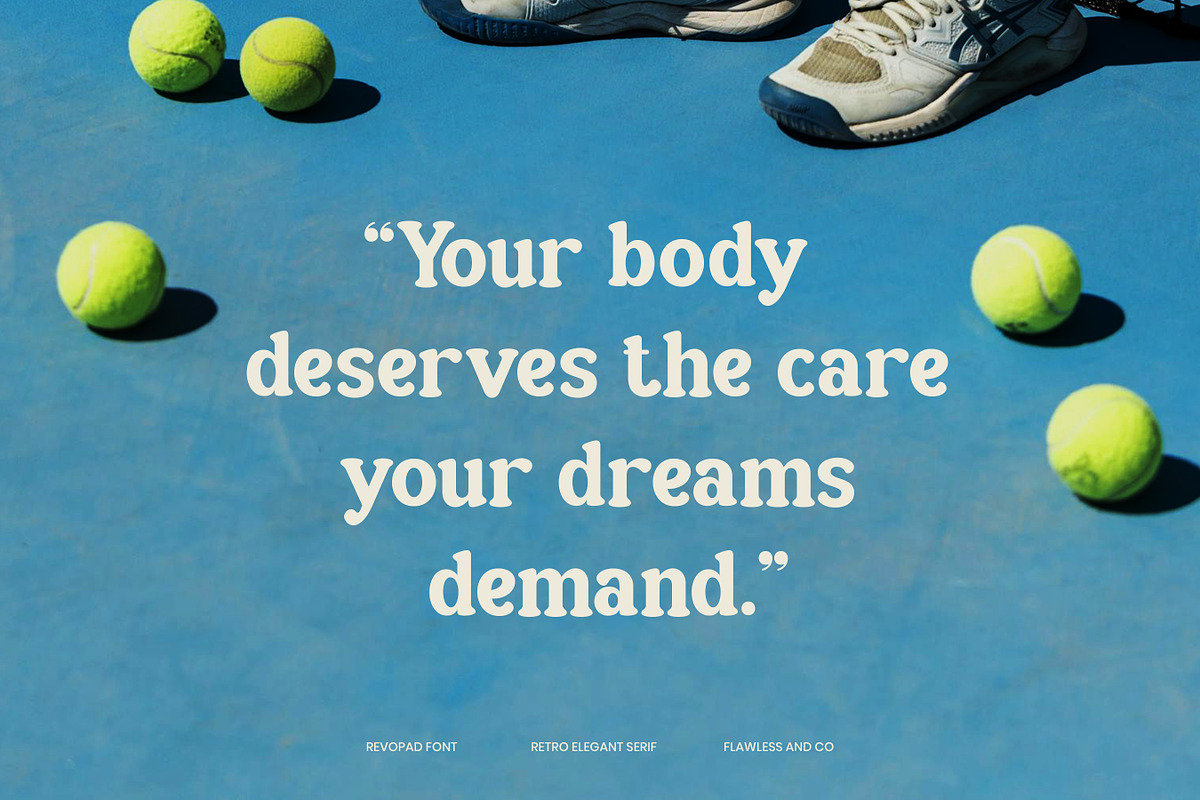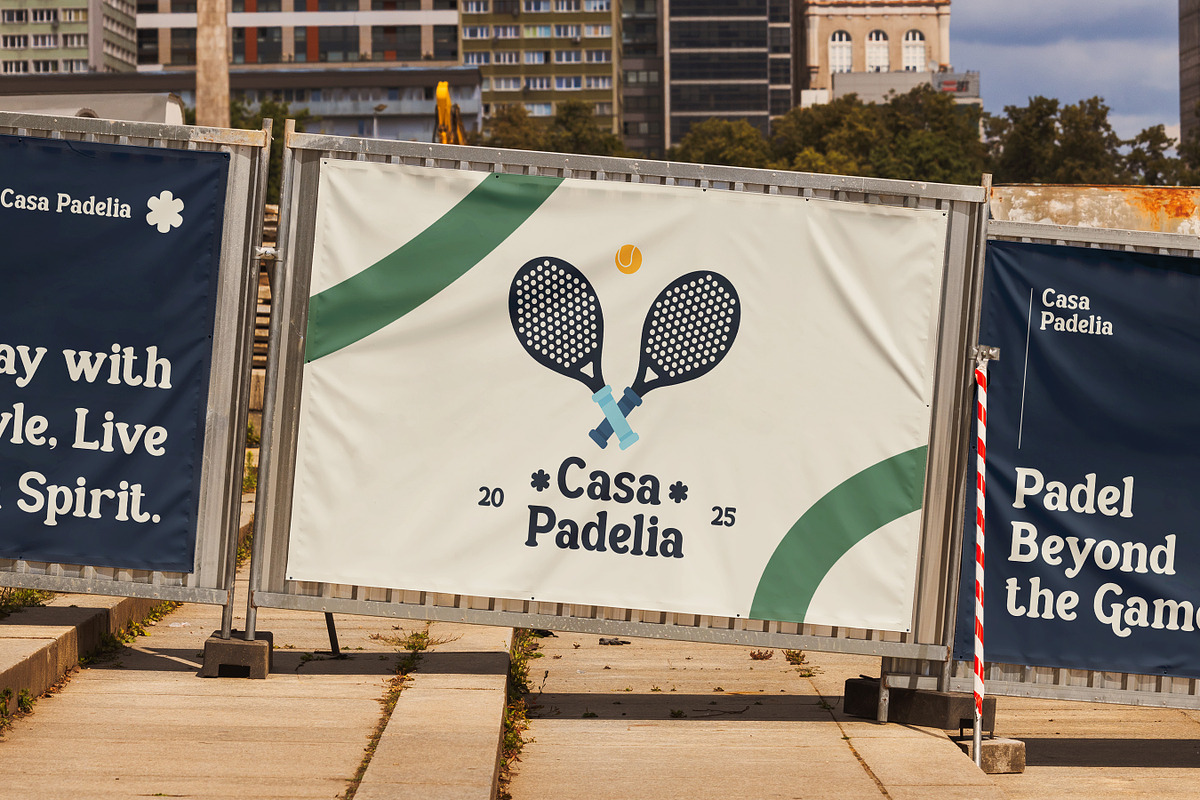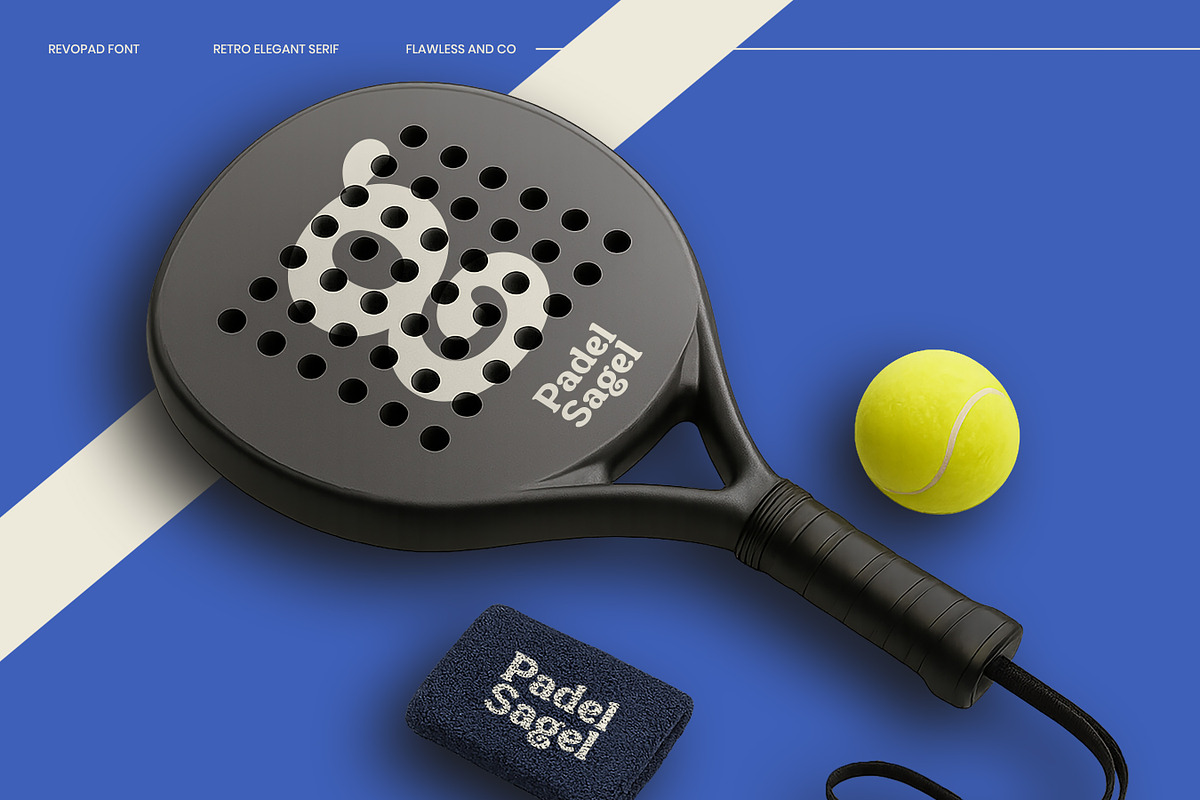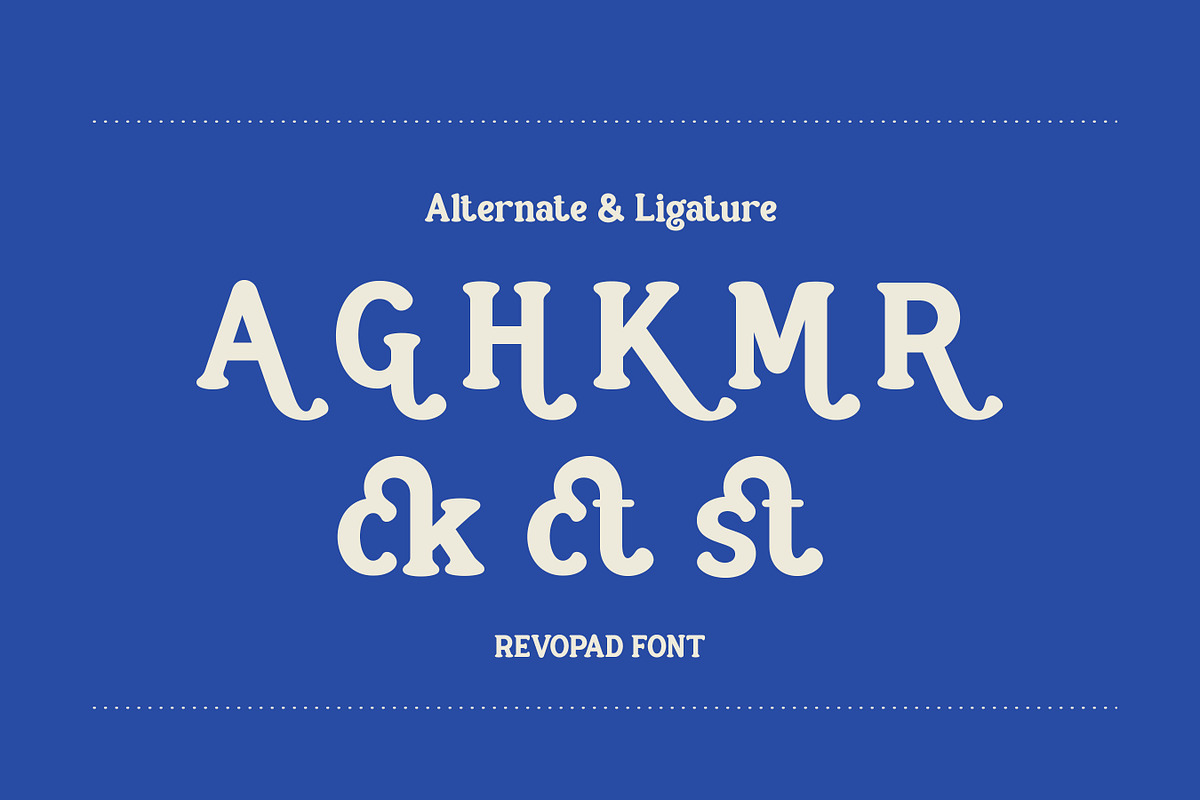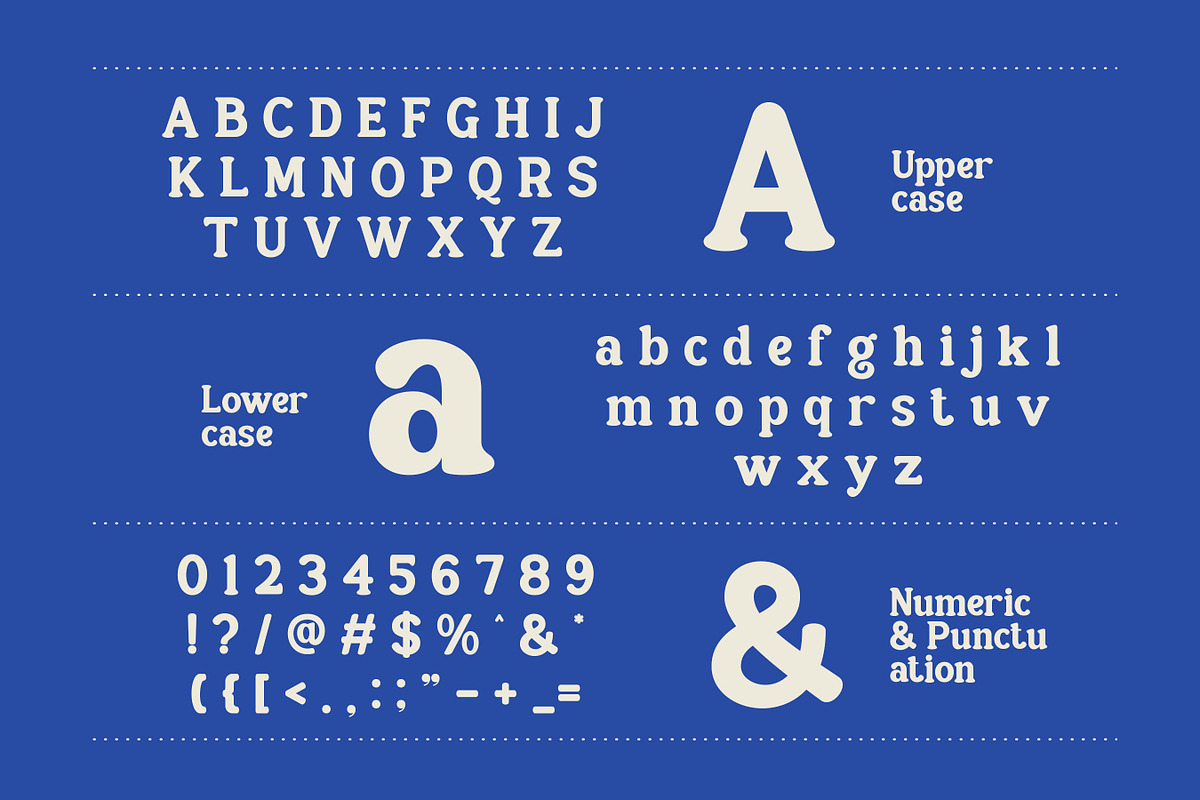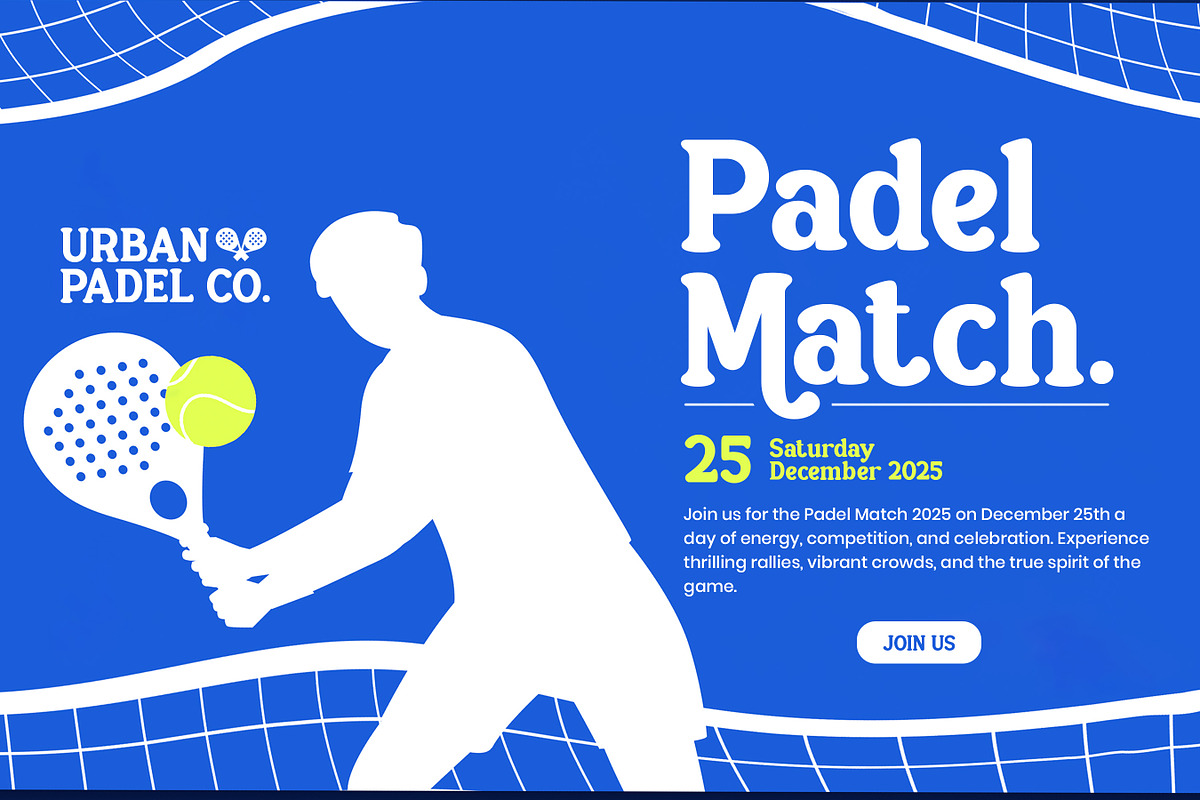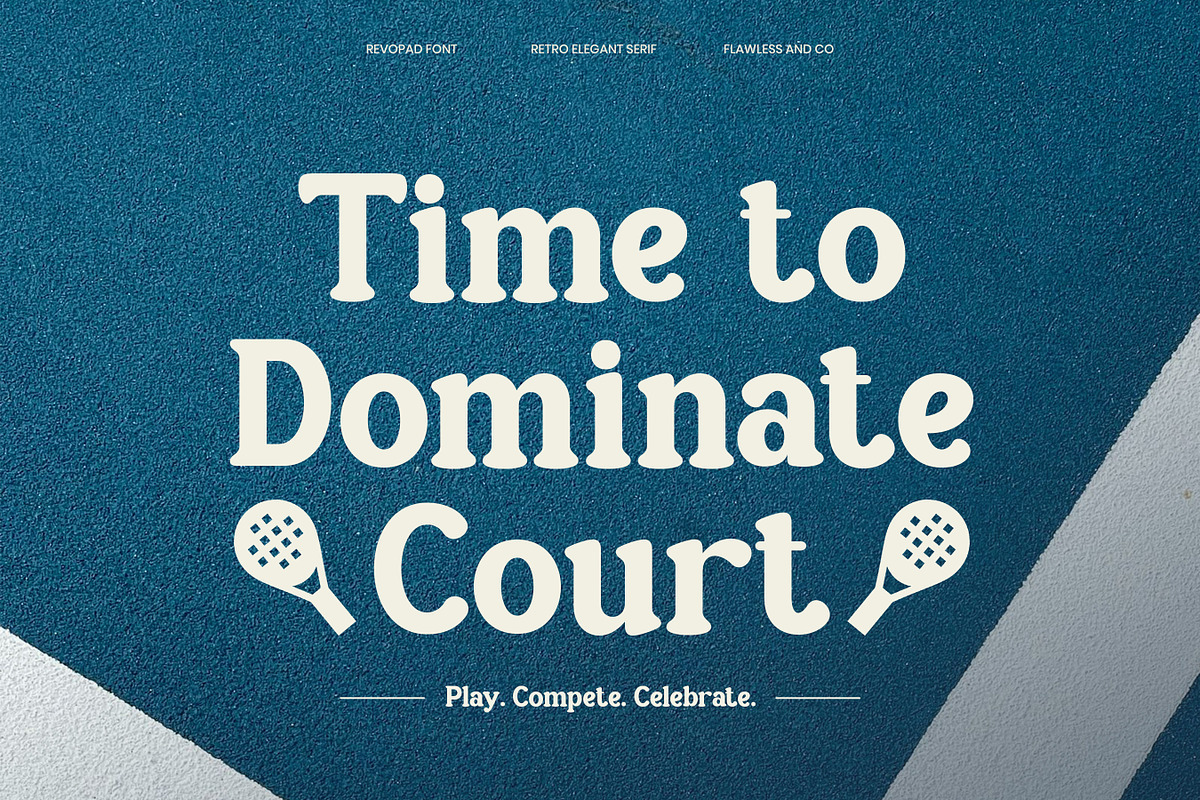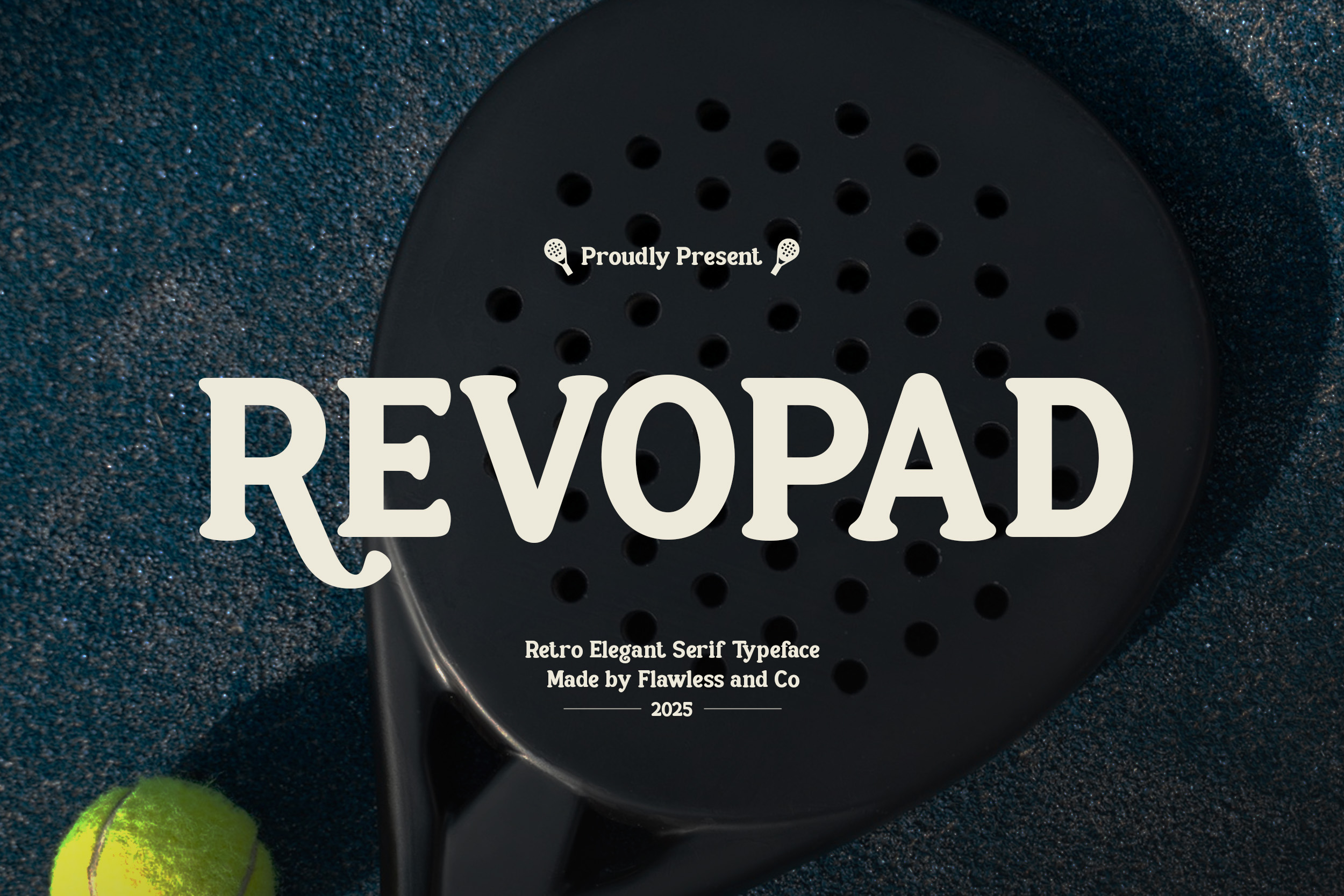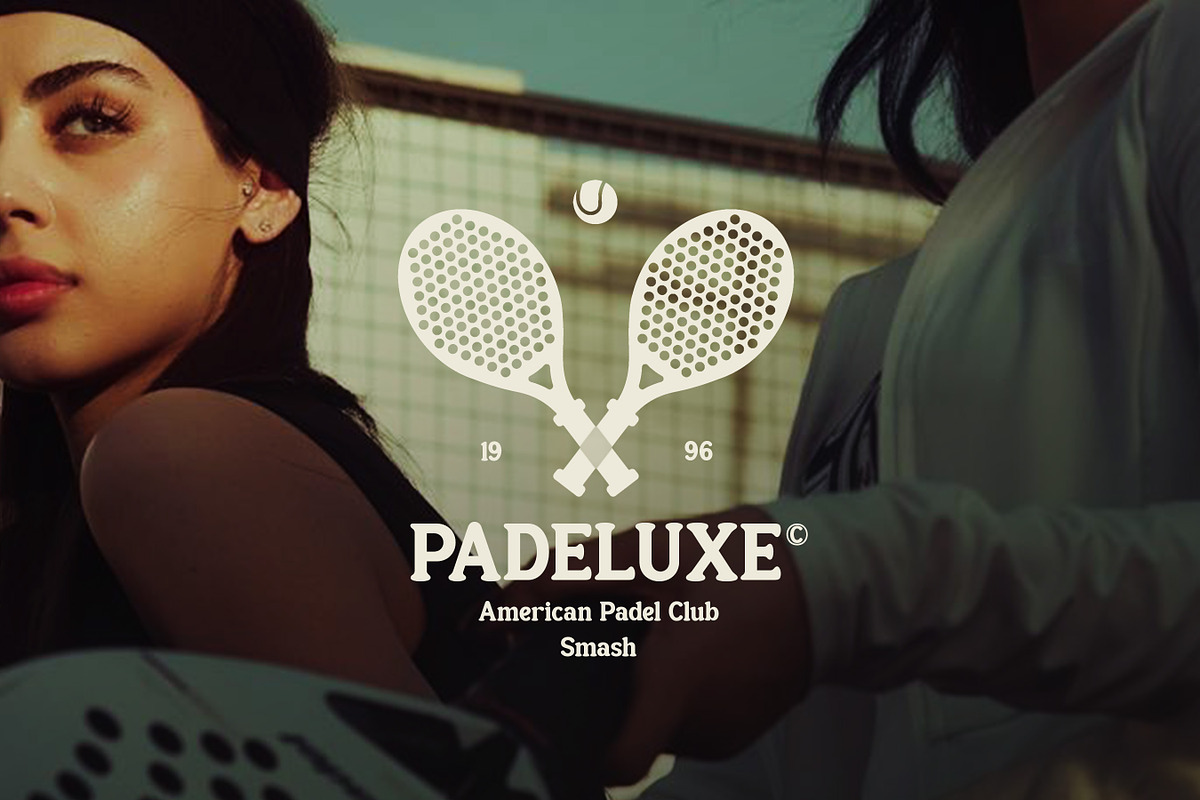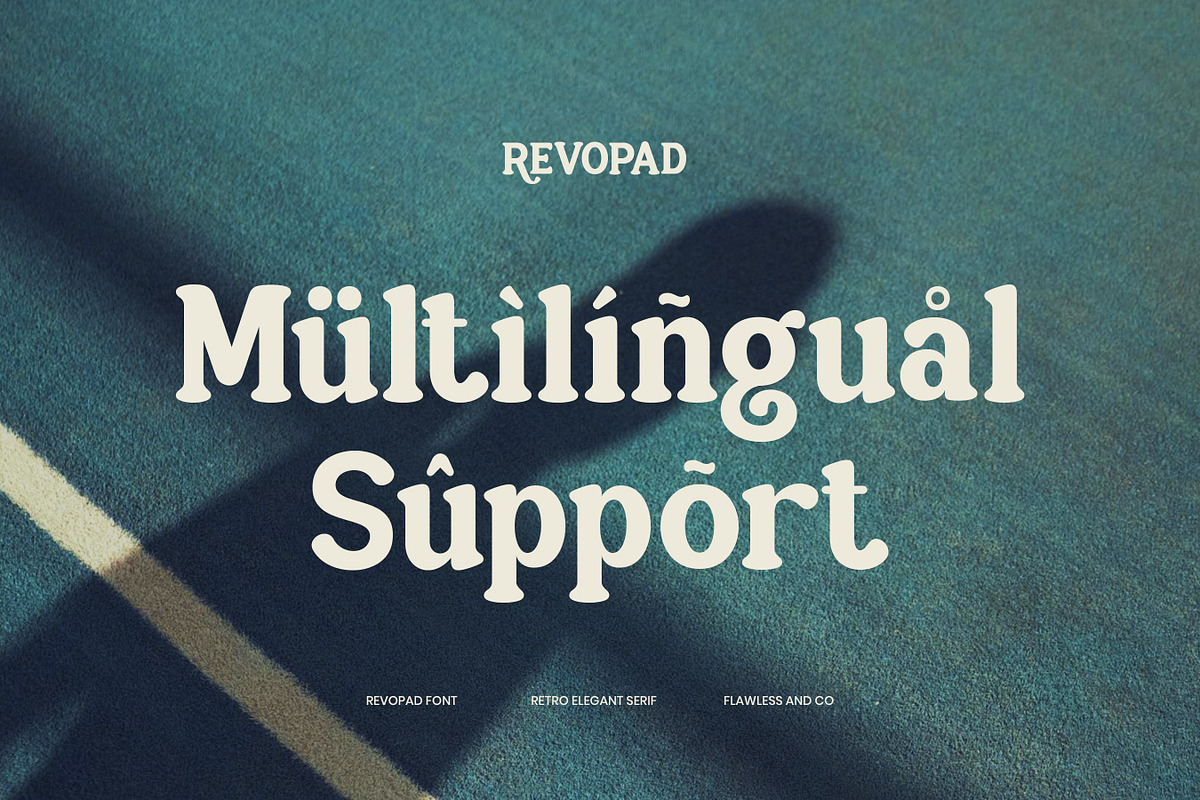
Revopad - Retro Elegant Serif Font
Revopad – Retro Elegant Serif Typeface
Revopad is a retro elegant serif font that blends classic charm with modern refinement. Each letter is crafted with subtle curves and distinctive serifs, creating a timeless aesthetic that feels both nostalgic and sophisticated. Its balanced proportions and graceful details make Revopad perfect for projects that demand style, confidence, and personality.
Who Should Use Revopad?
Revopad is made for designers, brands, and creatives who appreciate the beauty of timeless typography with a modern twist. It’s perfect for those who want to infuse their work with an elegant retro feel—balancing sophistication and boldness in one unique style. Whether you’re crafting visual identities, editorial layouts, or stylish product designs, Revopad is the go-to choice for creators who aim to leave a lasting impression through refined and expressive typography.
A Must-Have Font for "Brand and Logo" Creators and Designers
Revopad is an essential font for designers and brand creators who seek a retro yet elegant serif aesthetic. With its charming curves and refined letterforms, this typeface captures the perfect blend of vintage sophistication and modern appeal—making it ideal for crafting distinctive brand identities, luxury logos, and timeless visuals.
Why Choose Revopad for "Brand and Logo" Projects?
Revopad brings a unique blend of retro elegance and modern sophistication, making it an exceptional choice for brand and logo design. Its stylish serif details and smooth curves give every word a sense of refinement and timeless beauty, helping your brand stand out with memorable personality. Whether you’re designing for fashion, lifestyle, or editorial brands, Revopad delivers the perfect harmony between classic charm and professional appeal—ensuring your logo communicates both style and credibility at first glance.
Suitable For:
- Brand identities and logo design,
- Editorial layouts and magazine headlines,
- Fashion and lifestyle branding,
- Product packaging and luxury labels,
- Posters, invitations, and stationery design,
- Social media visuals and marketing materials